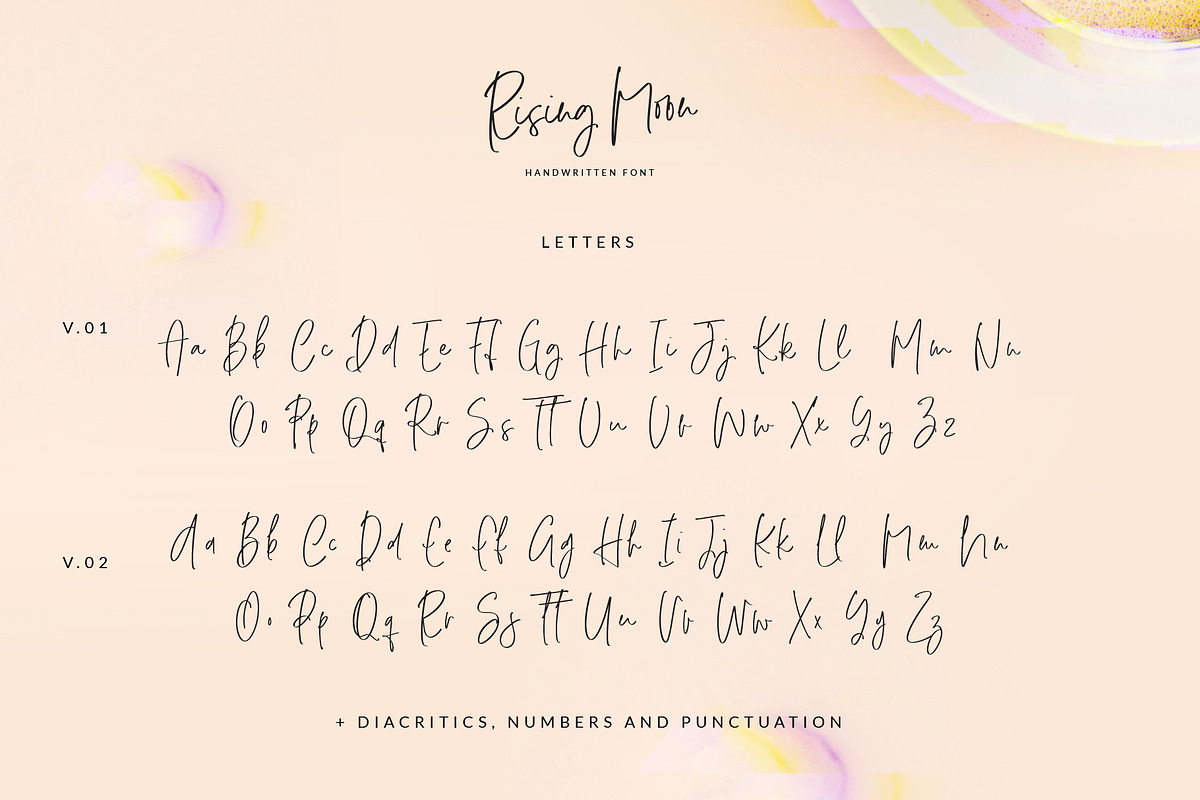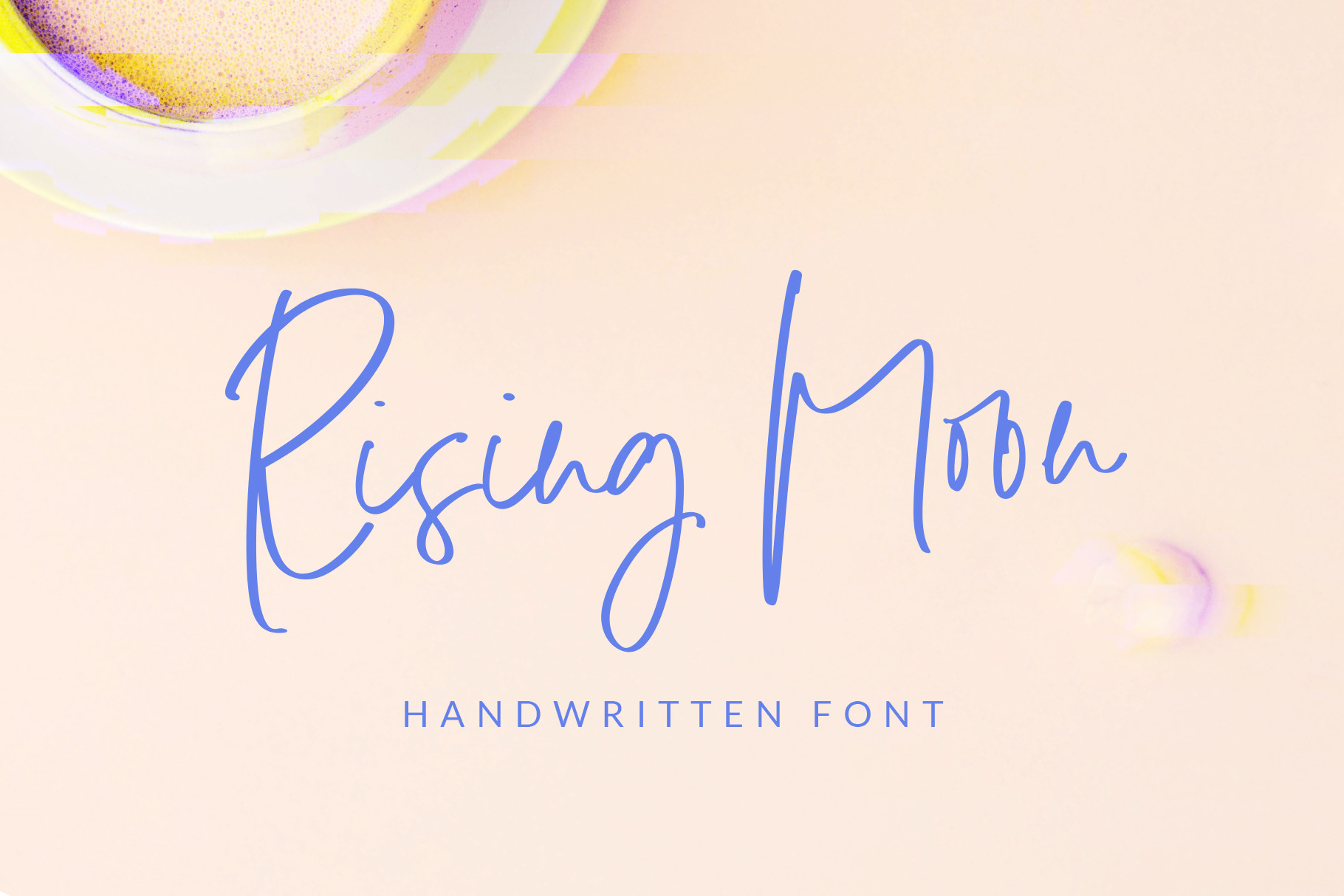
Rising Moon Handwritten Font
Rising Moon Handwritten Font is a modern handwritten font that comes in 2 versions that work perfectly together. So if you want to change the repeating letters in a sentence or headline you can easily do that by choosing from the alternative letters. Each version comes with unique uppercase and lowercase letters, central and western european diacritics and they have the same numbers and punctuation.
Use it to create nice quotes, invitations, posters, packaging for you or for your clients.